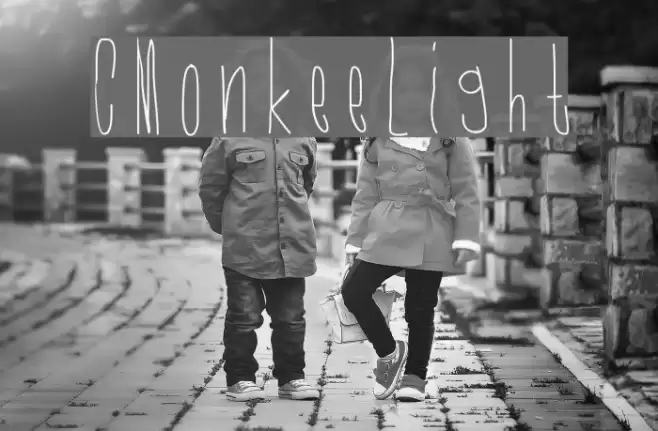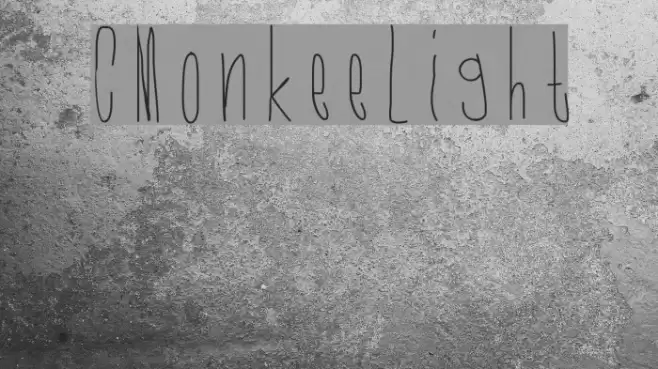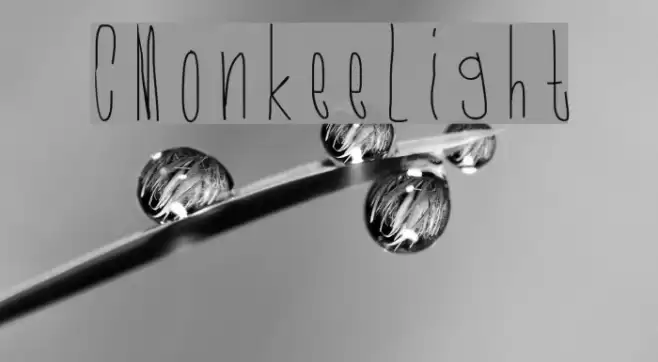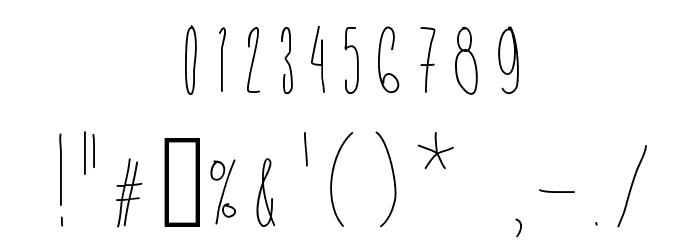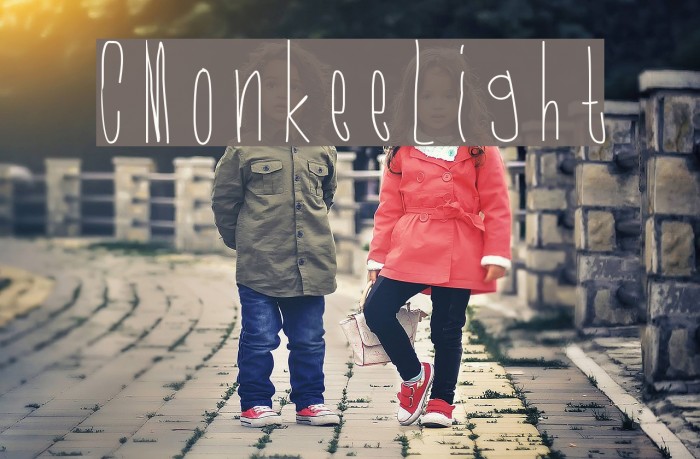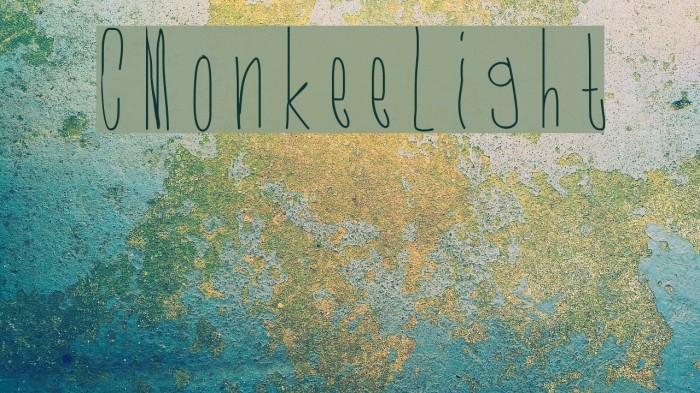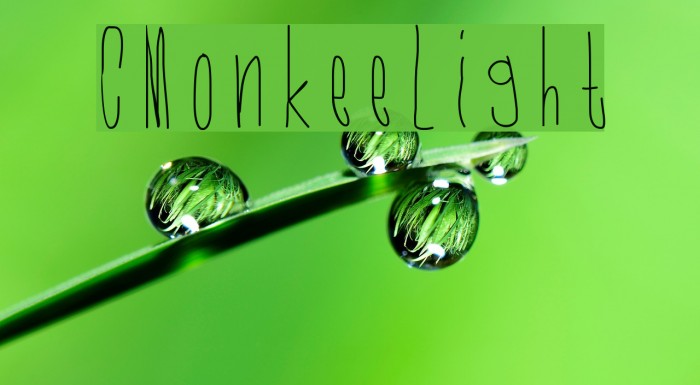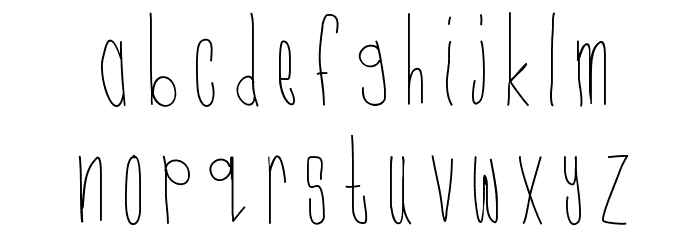
CMonkeeLight Font
CMonkeeLight Description
This font features a playful and whimsical design with elongated, thin strokes that give it a light and airy feel. The characters are tall and narrow, with a slight irregularity that adds a hand-drawn charm. The uppercase letters maintain a consistent height, while the lowercase letters have a more varied baseline, enhancing the casual aesthetic. The numerals and special characters follow the same slender style, ensuring a cohesive look across all text. This font's unique personality makes it stand out, perfect for projects that require a touch of creativity and fun.
A playful, thin, and whimsical font with a hand-drawn feel from Handwritten fonts.
- Proposed Projects: Ideal for children's books, creative posters, playful branding, and greeting cards.
- Overall Style: Playful
- Use Case: Headlines, Logos, Creative projects